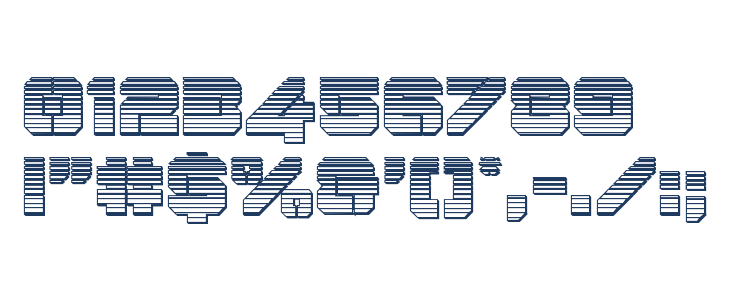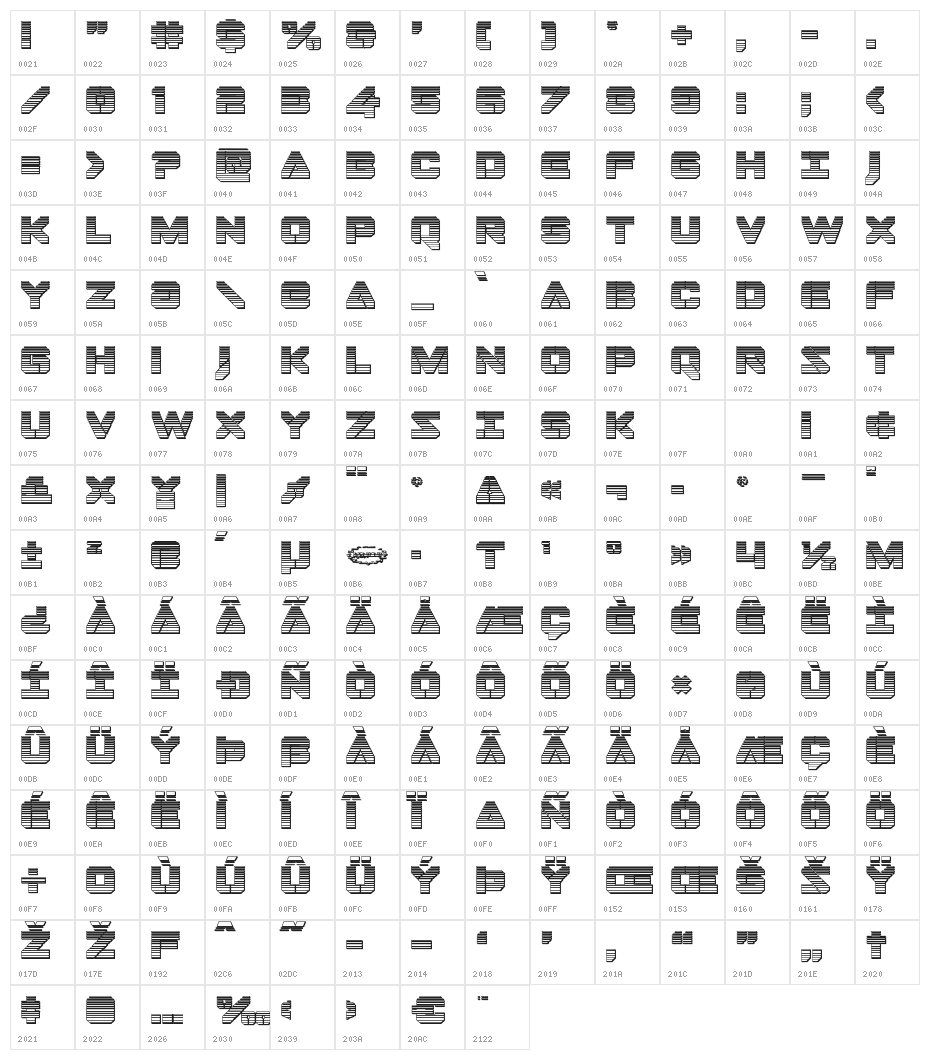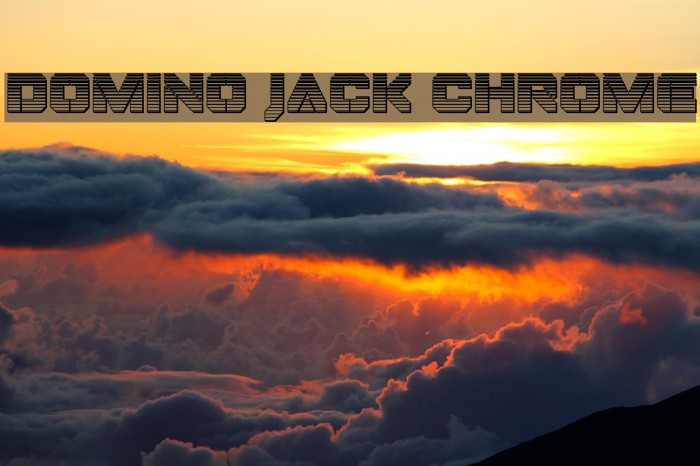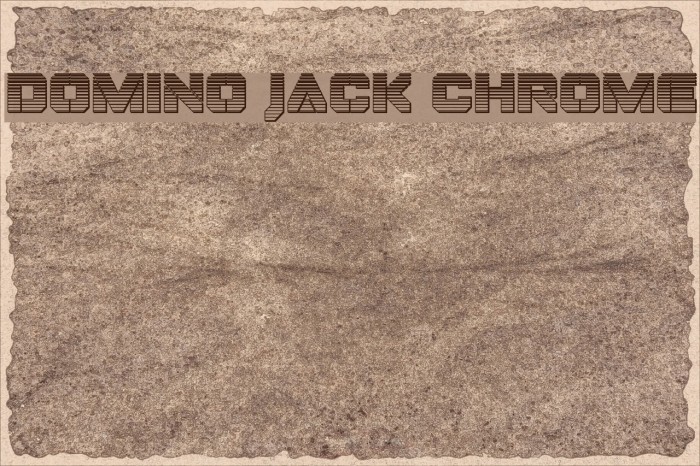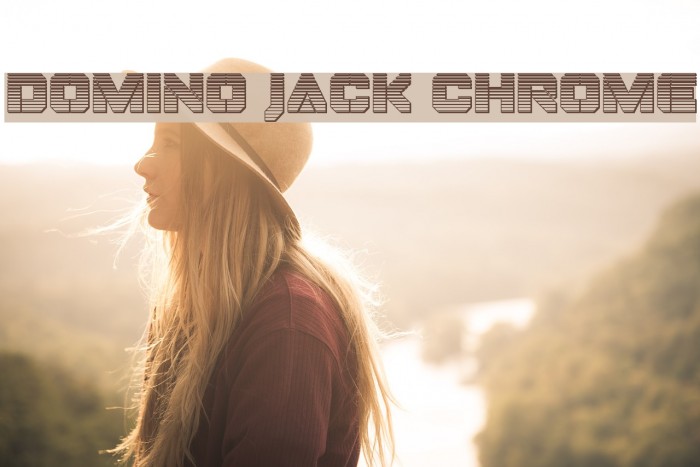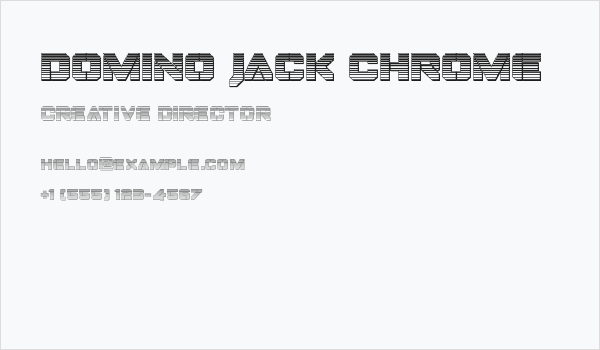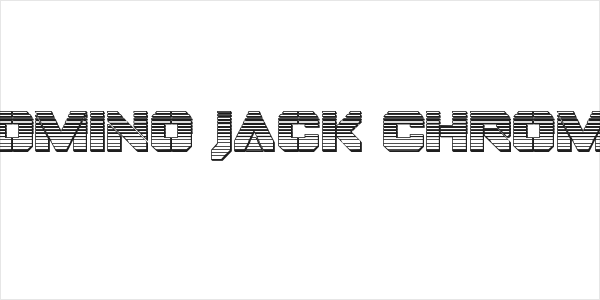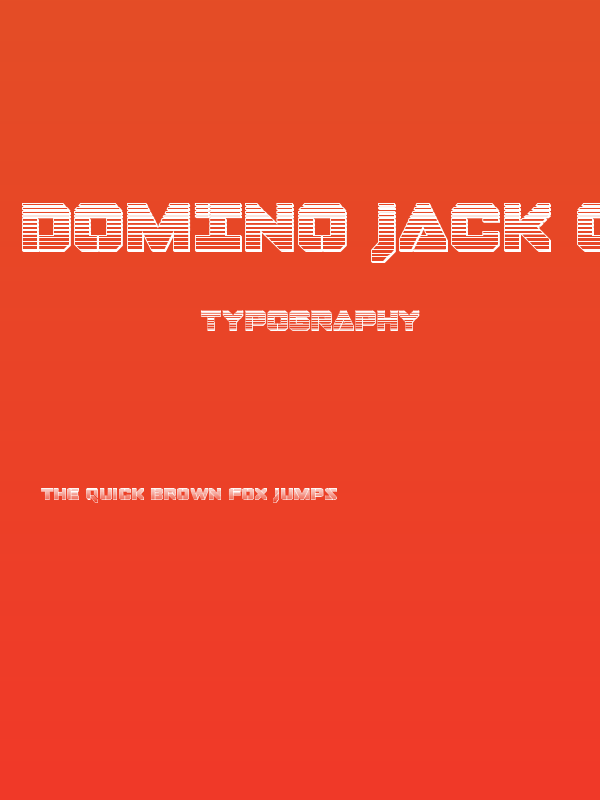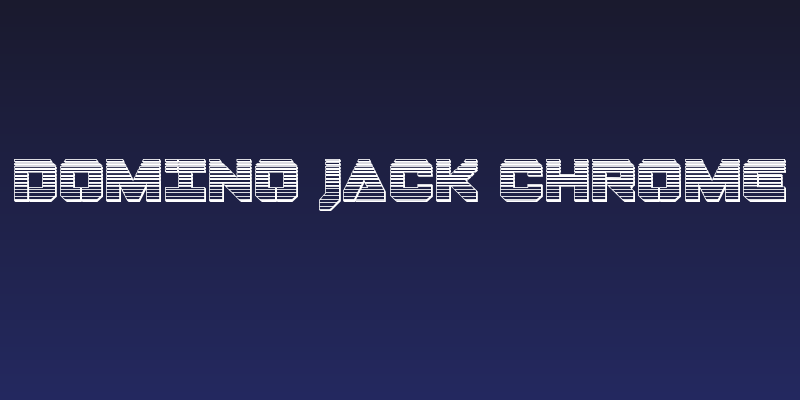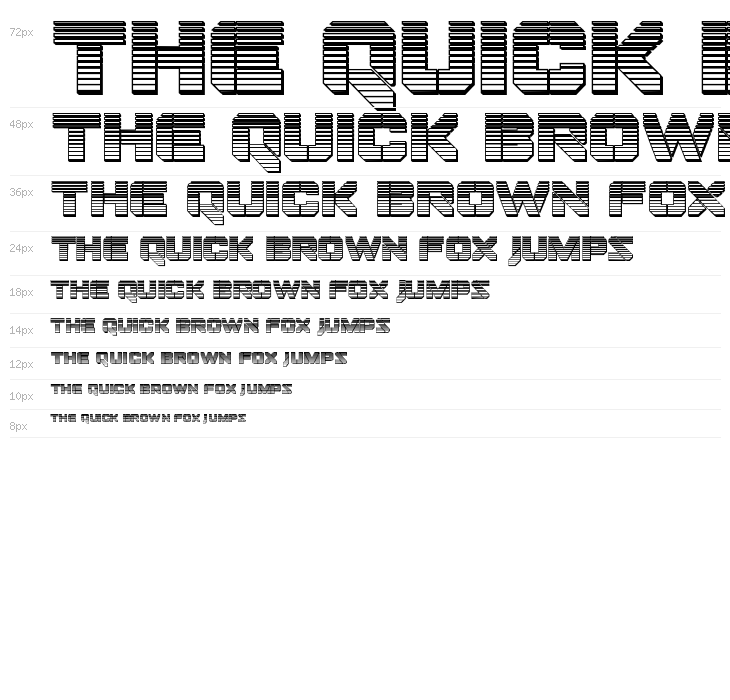
Domino Jack Chrome Font
Domino Jack Chrome Description
This font features a bold, geometric design with a distinct three-dimensional effect created by parallel lines that form each character. The uppercase letters are structured with sharp angles and a blocky appearance, giving a sense of depth and movement. The lowercase letters maintain the same style, ensuring consistency across the typeface. Numbers and special characters are designed to match, providing a cohesive look. The font's unique style makes it stand out, ideal for projects that require a modern and eye-catching aesthetic.
| Proposed Projects | Ideal for posters, logos, and branding materials that require a modern and striking appearance. |